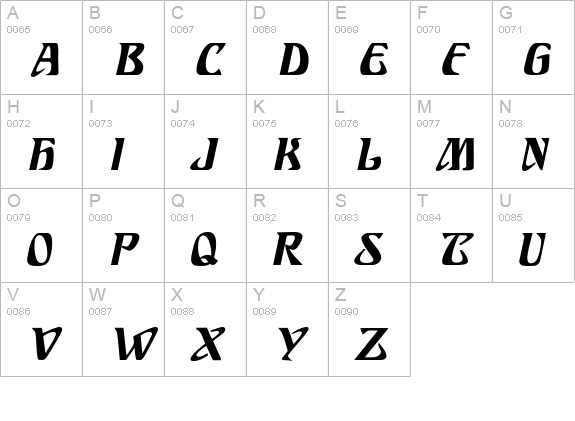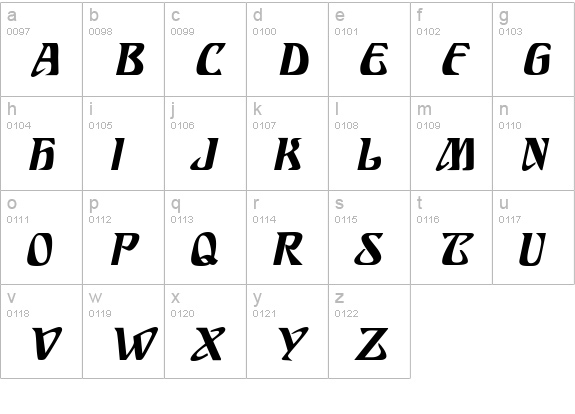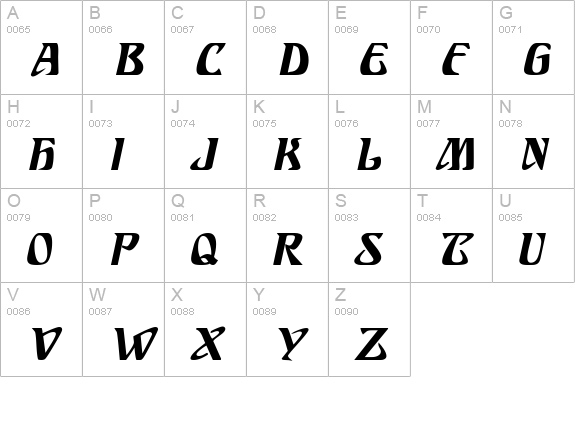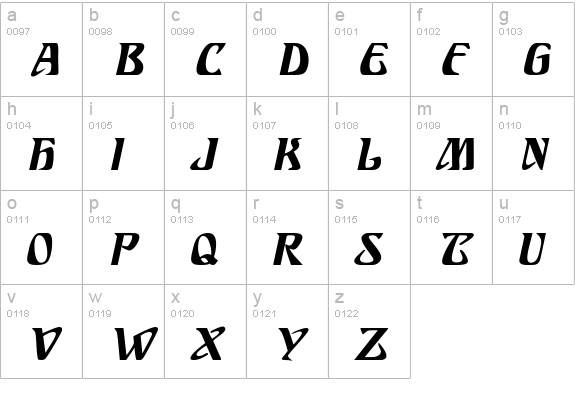
SundraDisplayCaps Bold Italic is a strong, high-contrast, italic variant in the SundraDisplayCaps typeface family \xE2\x80\x94 well suited to headlines, attention-grabbing titles, and strong calls-to-action.
The SundraDisplayCaps Bold Italic font is a striking and bold typeface that exudes elegance and sophistication. Its unique combination of thick strokes and slanted italics make it perfect for adding a touch of drama to any design project. Whether you're creating eye-catching headlines or stylish branding materials, this font is sure to make a statement. And the best part? SundraDisplayCaps Bold Italic font is completely free to download at FontsMarket.com. So you can elevate your designs without breaking the bank. Don't miss out on this opportunity to enhance your creative projects with this stunning font. Download it now and let your creativity shine!